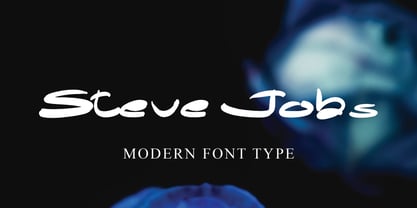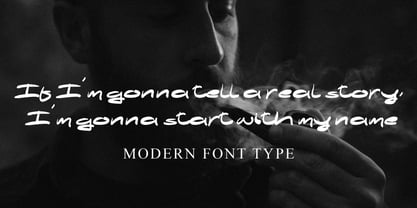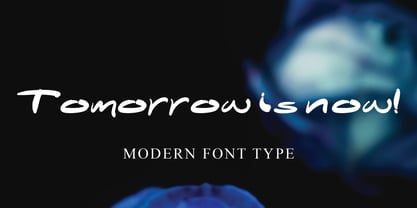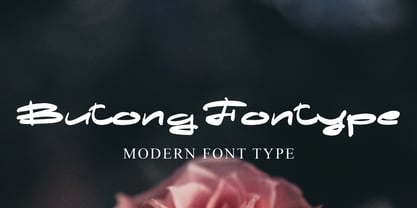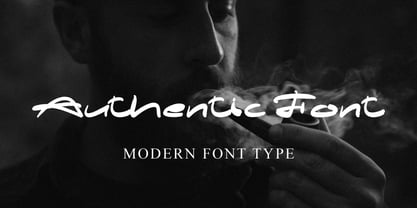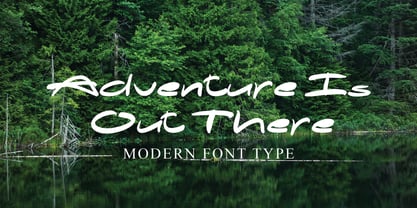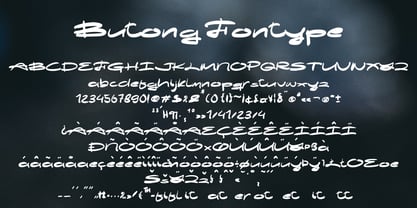
Butong
by Naatypo
The Butong Font Family was designed by Kurnia Elis Setyorini and published by Naatypo. Butong contains 1 styles. More about this family
Unleash your creativity with The Butong font, a mesmerizing marvel that serves as the heartbeat to your imaginative pursuits. Imagine its refined grace highlighting profound quotes, enhancing chic menus, sculpting compelling taglines, illuminating vibrant flyers, and adding a defining flair to prominent invitations. Picture it lending an intimate touch to sentimental greeting cards, stirring a splash of creativity into impactful posters, or gifting a distinct glow to your custom business cards. The Butong wraps fashion-forward elegance around clothing designs, conveys feelings through articulate letters, and artistically refines personalized stationery. Born from the artist's careful imitation of stroke-inspired handwriting, The Butong is abundant in stylistic alternatives and ligatures. Its unmatched personality infuses an air of sophistication and raw charm into your project, assuring a display that is radiant, elegant, and memorably captivating with every use.
Designers: Kurnia Elis Setyorini
Foundry: Naatypo